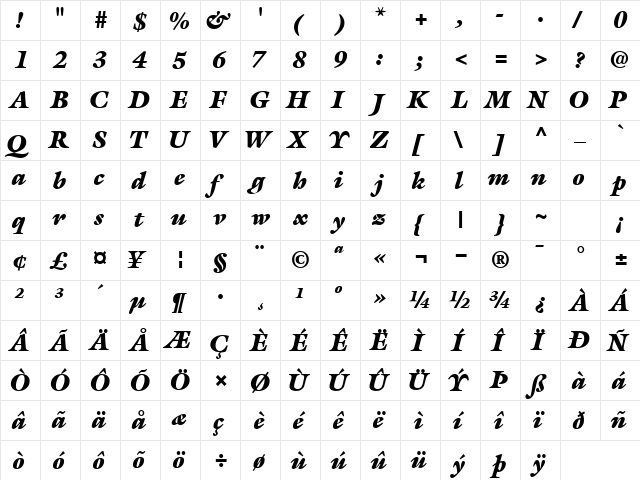
AcanthusBlackSSK BoldItalic Font Preview
AcanthusBlackSSK BoldItalic
Design Context for AcanthusBlackSSK Typeface
AcanthusBlackSSK takes a measured approach to typography — its balanced proportions and neutral character make it a reliable workhorse for both digital and print work. The dynamic lean of this cut emphasises speed and emphasis in any layout. Its bold stroke weight gives it real presence on the page.
Pro Tip: Use AcanthusBlackSSK for emphasis, pull quotes, and subheadings where its slanted energy can add rhythm to the layout.